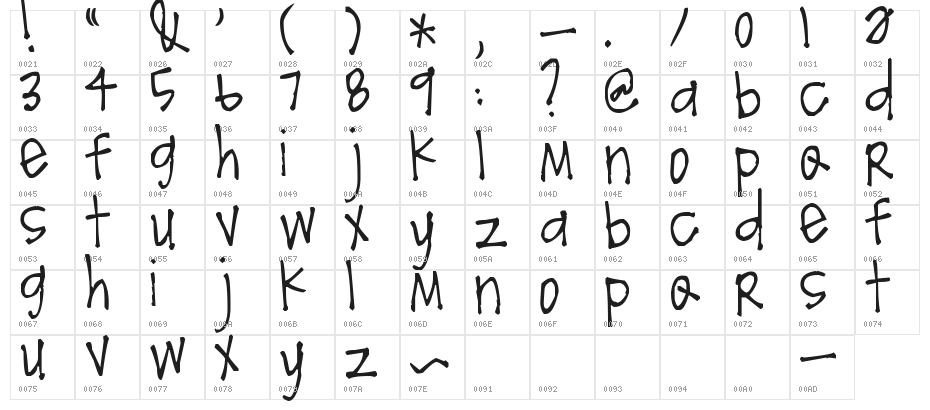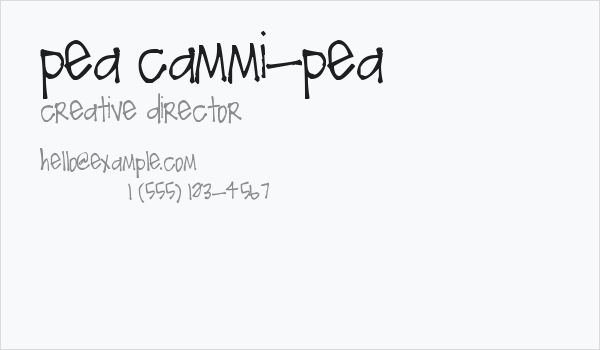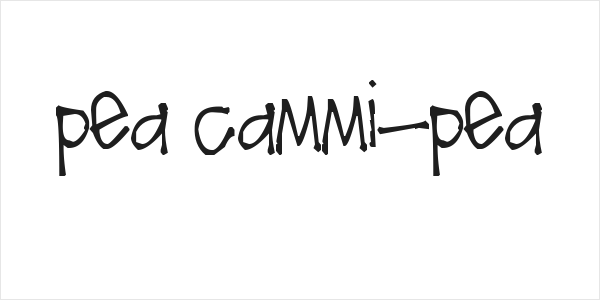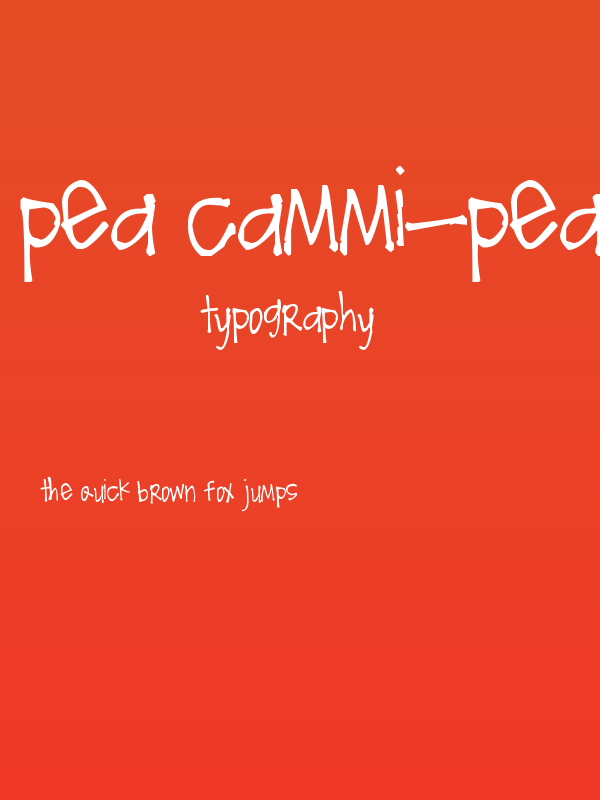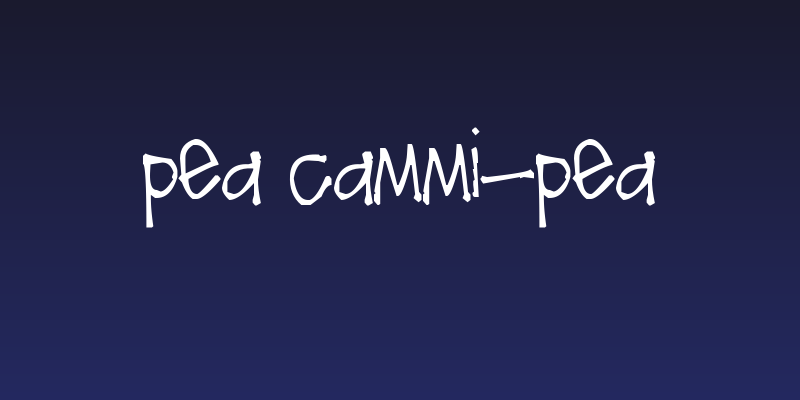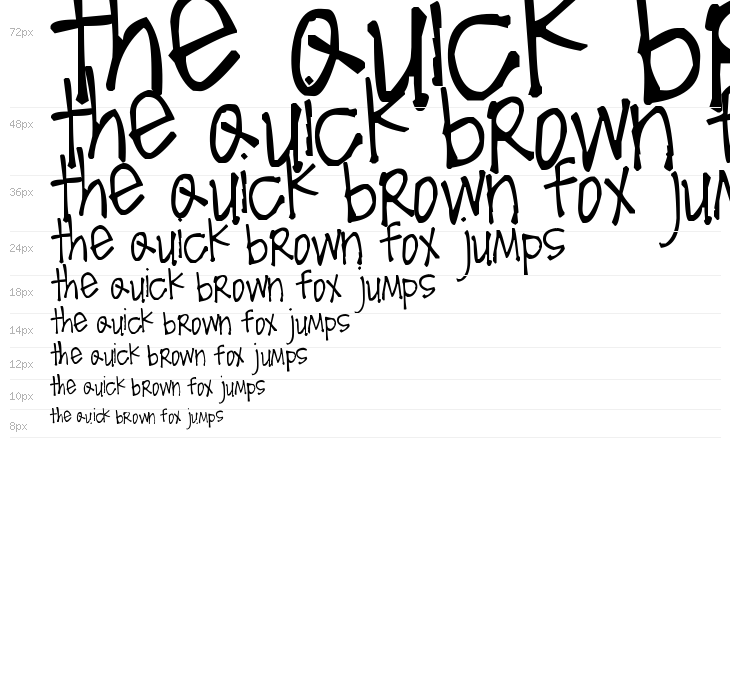
Pea cammi-pea Font
Pea cammi-pea Description
This font exudes a playful and casual handwritten style, characterized by its irregular and slightly whimsical letterforms. The strokes are uneven, giving it an authentic, hand-drawn appearance that feels personal and approachable. The letters are slightly tilted and vary in size, adding to the informal and relaxed vibe. This font captures the essence of spontaneity and creativity, making it ideal for projects that require a touch of personality and charm. The numbers and special characters maintain the same playful aesthetic, ensuring consistency throughout the typeface.
Overall StyleCasual
Use CaseHeadlines, Informal text, Creative projects
Proposed ProjectsIdeal for greeting cards, personal notes, children's books, and creative branding projects.